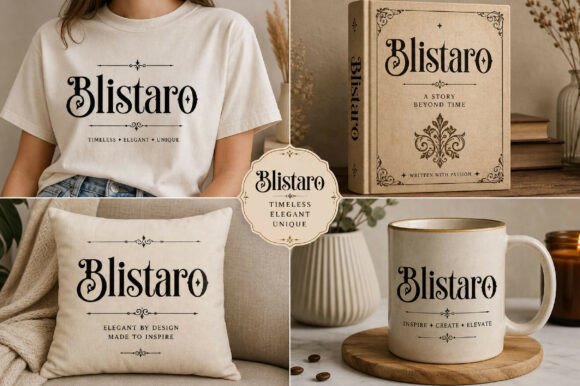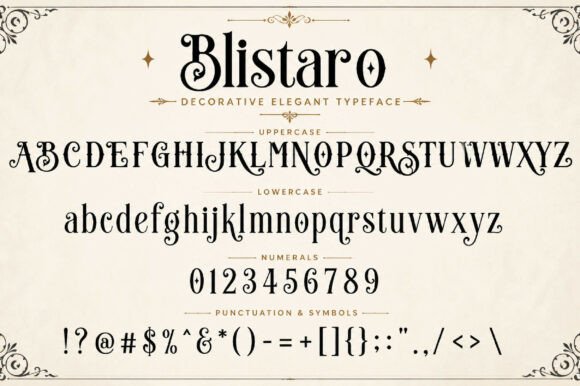
Where Creativity Meets Sophistication: Introducing Blistaro Font
Have you ever stared at a blank canvas, trying to conjure up the perfect design, only to be met with a sea of uninspiring fonts? It’s a frustrating feeling, but one that can be easily resolved with the right tool. For designers seeking a touch of elegance and sophistication in their work, we’re excited to introduce the Blistaro Font – a refined decorative serif font designed to elevate your designs to new heights.
This exquisite font is the perfect addition to any designer’s toolkit, offering a unique blend of style and readability that’s sure to impress. With its smooth curves, stylish serifs, and ornamental touches, Blistaro Font adds a level of luxury and uniqueness to your typography that’s hard to find elsewhere. Whether you’re working on branding, logos, or editorial layouts, this font is an excellent choice for designers who want to create premium and creative identities.
- Unique Characteristics: Blistaro Font features a unique blend of modern and vintage elements, with intricate details and textures that add a touch of elegance to any design.
Blistaro Font Review
I recently had the chance to work with the Blistaro font, and I must say it’s a unique and interesting addition to any design project. ✨ The font’s bold and modern aesthetic makes it perfect for titles and headings, and the subtle nuances in its design make it stand out in a crowded font market.
- ✨ The font’s flexibility is one of its strongest points. It can be used in a wide range of contexts, from modern websites to traditional print materials.
- ✨ The Blistaro font is also highly legible, even at smaller font sizes, making it perfect for digital applications.
However, there are some limitations to consider. ⚠️ The font’s bold and modern aesthetic may not be to everyone’s taste, and some users may find it overwhelming or difficult to read.
- ⚠️ The font’s lack of subtlety may also make it difficult to pair with other fonts or design elements.
- ⚠️ Additionally, the font’s boldness may make it difficult to use in contexts where a more understated design is required.
Overall, I would say that the Blistaro font is a solid addition to any designer’s toolkit. While it may not be perfect for every project, its unique aesthetic and flexibility make it a great option for designers looking to add some visual interest to their work.
For best results, use Blistaro Font in bold or italic styles to add emphasis.
Use Blistaro Font for headings, titles, and subheadings to create a visually appealing design.
Blistaro Font is ideal for creative projects, such as infographics, posters, and brochures.